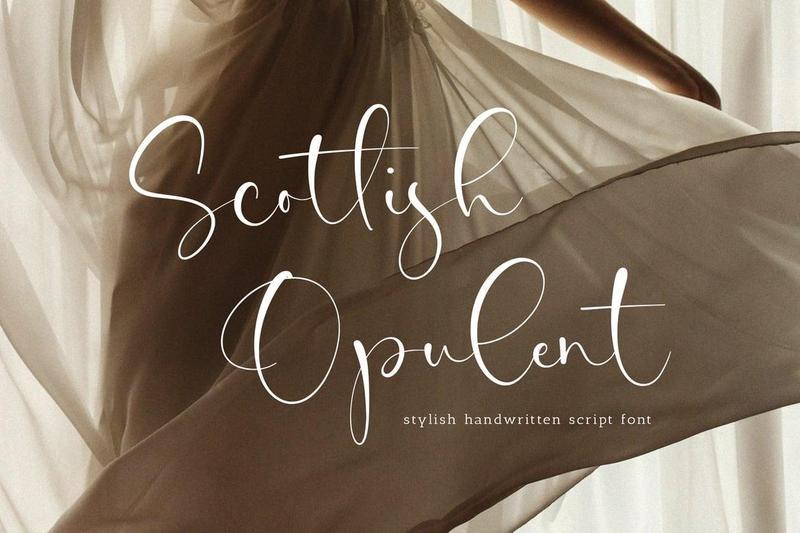
Scottish Opulent A Stylish Handwritten Script Font, which was created with great care and specially created for you.
Scottish Opulent is perfect for product packaging, branding project, megazine, social media, wedding, or just used to express words above the background.